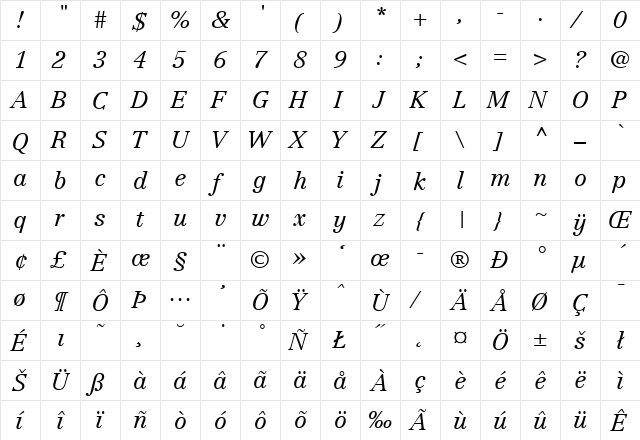
Centennial-LightItalic Regular Font Preview
Centennial-LightItalic Regular
Design Context for Centennial-LightItalic Typeface
Centennial-LightItalic is a composed and adaptable typeface that performs quietly and consistently across a wide range of design contexts. Its italic angle brings a sense of urgency and motion to the letterforms. Its slender proportions lend an understated elegance to any composition.
Pro Tip: Use Centennial-LightItalic for emphasis, pull quotes, and subheadings where its slanted energy can add rhythm to the layout.